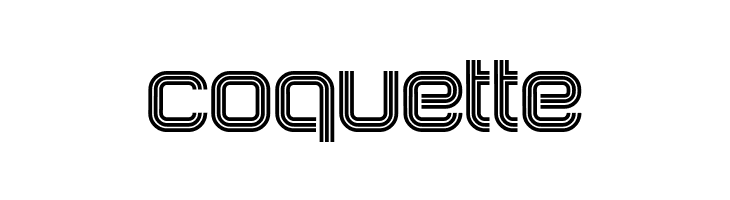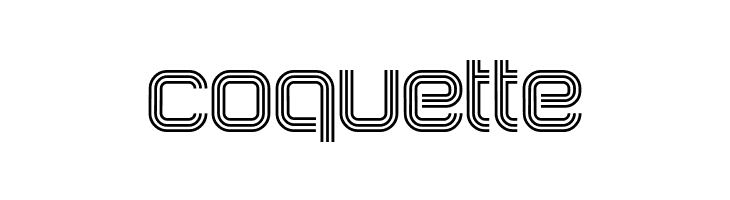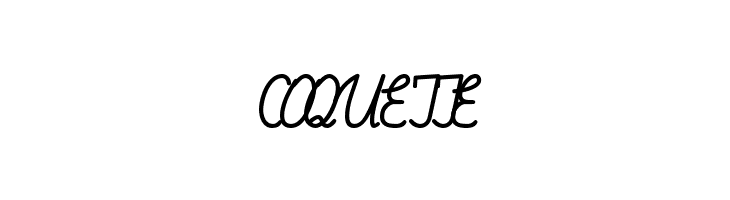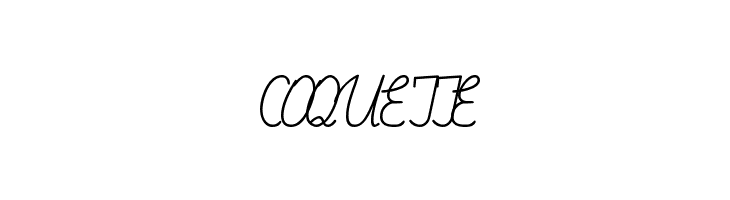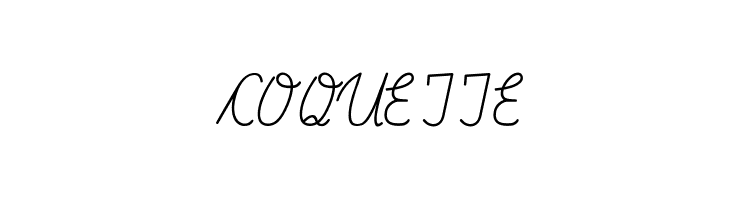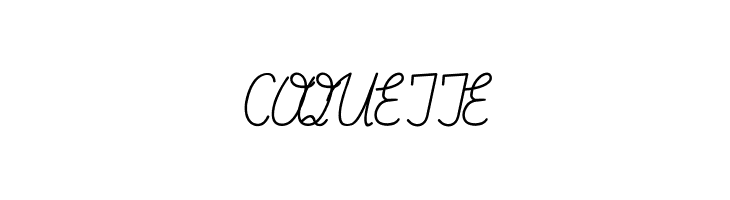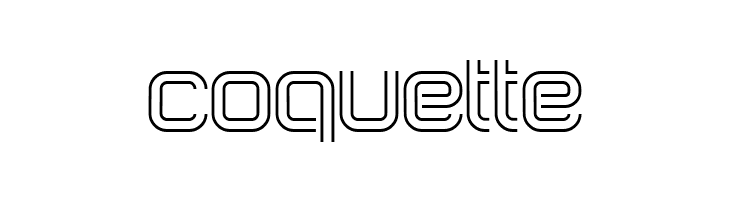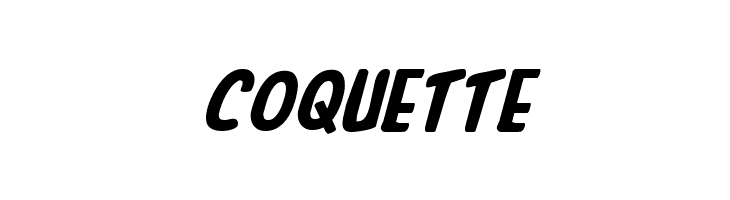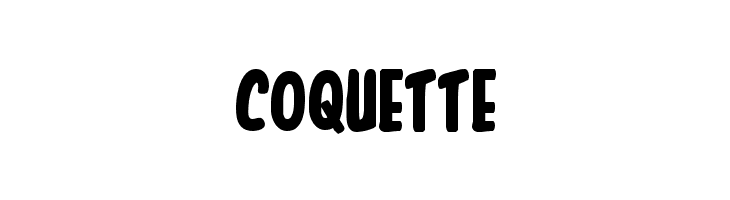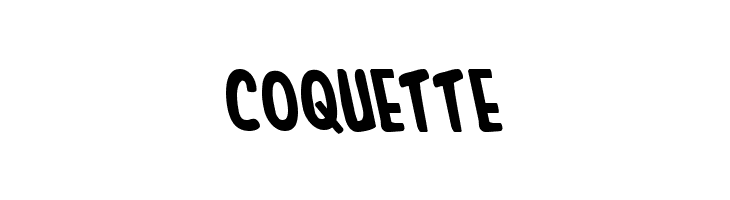
A playful, hand-drawn font with freckle-like textures and bold outlines.
A hand-drawn, artistic font with an organic and informal style.
A playful, hand-drawn font with whimsical, decorative characters.
A playful, bold font with characters in tilted, irregular boxes.
A bold, halftone-patterned font with a retro, disco-inspired style.
A hand-drawn, narrow font with a playful and organic style.
A bold, italicized font with a dynamic striped pattern and high contrast.
A dramatic, edgy font with a dripping, chaotic style.
A bold, geometric font with a playful, modern style and thick outlines.
A bold, geometric font with a three-dimensional outline and futuristic style.
An edgy, bone-like font with sharp, irregular edges and a rugged appearance.
A dynamic, handwritten-style font with tall, narrow, and angular letterforms.
A playful handwritten font with irregular strokes and a casual style.
A bold, striped font with a modern and artistic flair.
A bold, textured font with a hand-drawn, distressed appearance.
A bold, brush-style font with dynamic, slanted strokes.
A bold, striped font with a dynamic and modern style.
A bold, textured font with a playful, distressed style.
A bold, 3D-effect font with tight spacing and a strong visual impact.
A clean, modern sans-serif font with a balanced and versatile design.
A bold, textured font with a frayed, energetic appearance.
A bold, hand-drawn font with a brush-like texture and casual style.
A bold, brush-style font with a dynamic and informal appearance.
A modern, oblique font with a sleek, condensed style and medium contrast.
A bold, modern font with uniform strokes and strong visual impact.
A bold, impactful font with strong, assertive characters.
A bold, modern sans-serif font with clean lines and uniform stroke width.
A whimsical and elegant script font with flowing, looping strokes.
A playful, hand-drawn font with dynamic and irregular letterforms.
A dynamic, handwritten font with sharp, angular strokes and a lively appearance.